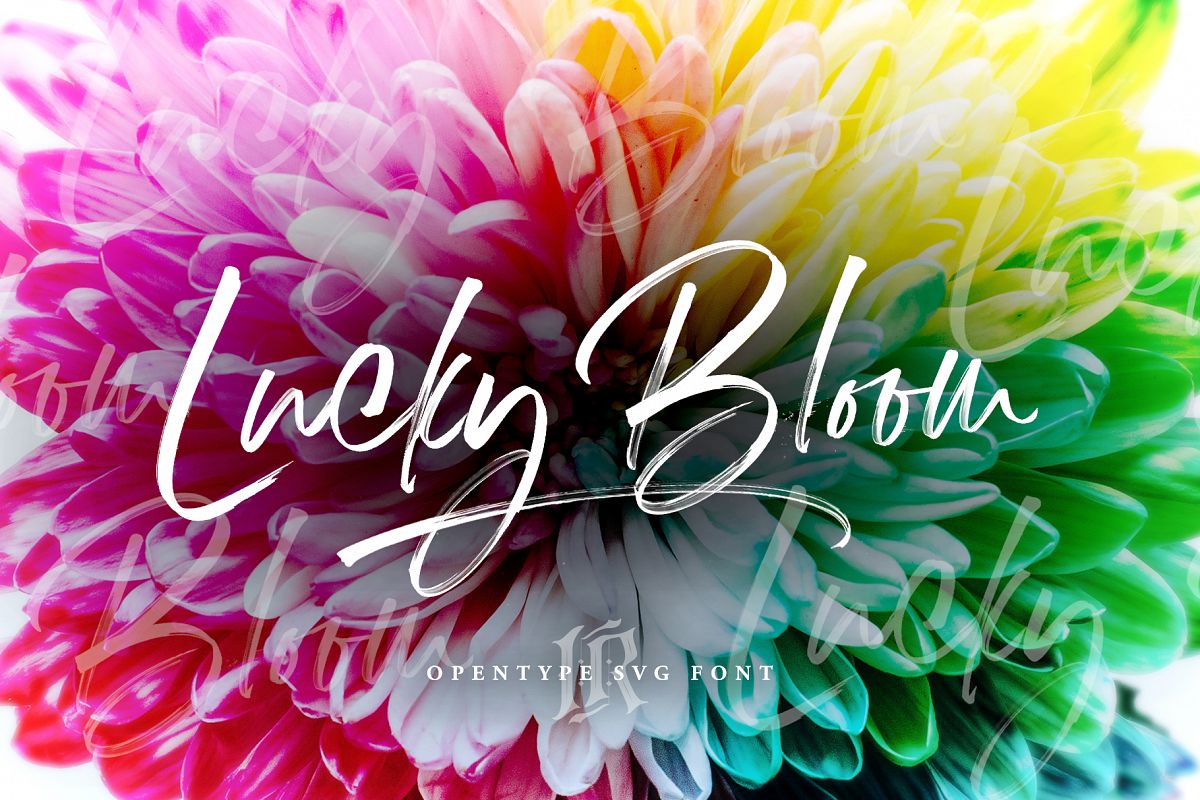
Lucky Bloom SVG Font
Lucky Bloom SVG Font font preserves all the high definition detail of the original handwritten letters. Using OpenType-SVG technology it truly looks realistic. The OpenType-SVG format requires Photoshop CC 2017 or Illustrator CC 2018 (or newer). Regular OTF format is also included.What’s included:
• Lucky Bloom OpenSVG Font A high definition OpenSVG brush font with realistic texture, with lowercase alternates and 18 Ligatures. (You need to be using Photoshop CC 2017.1.1 or later)